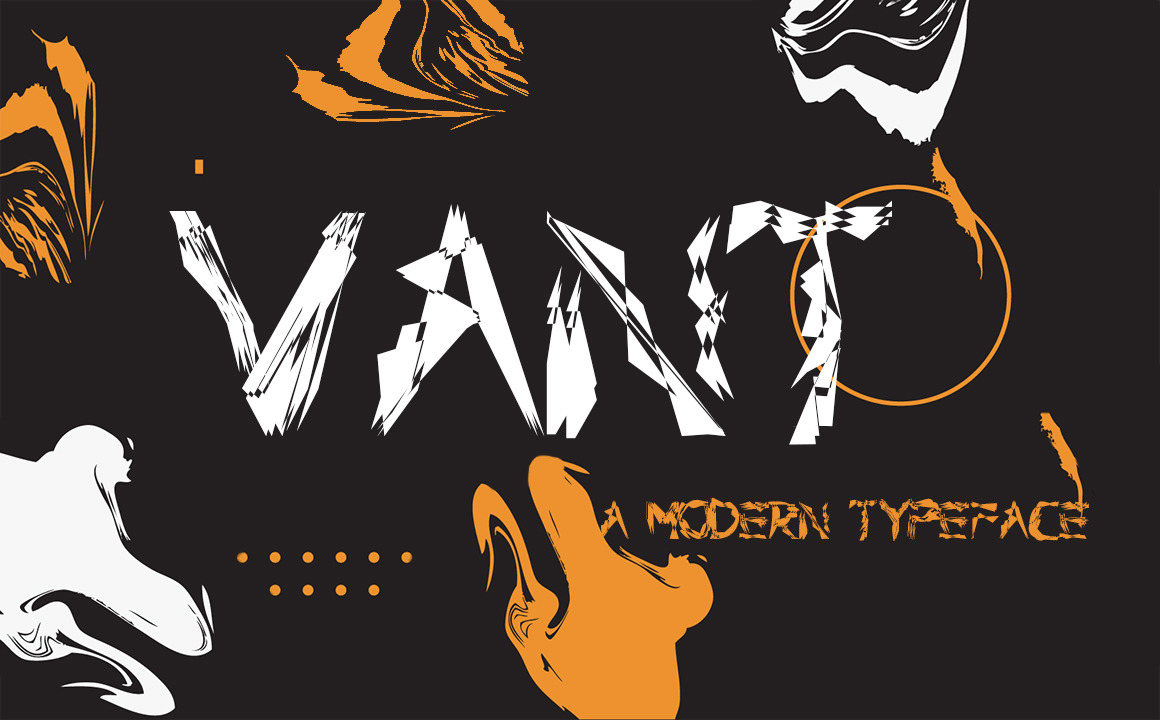
VANT Typeface
Introducing, VANT Typeface!
The reason I made this font is because I was pretty bored making the typical type of font, so I experimented. VANT is a modern typeface, inspired by Abstract-Expressionism. It's perfect for you who likes things that are one of a kind and unique. This typeface can be used for web design, editorial, branding and many more! That's it, I hope you'll enjoy it, and if you do, please tell me! Thank you for your time, if you want to contact me, just message me :)